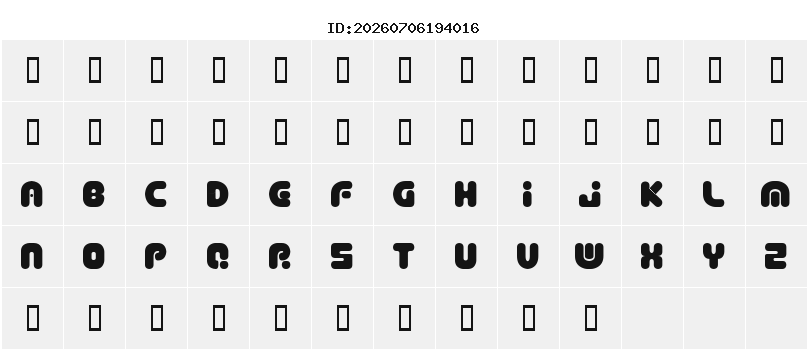
Depth Charge Preview
• Font Name: Depth Charge
• Font Style: SemiPhat
• Font ID: Macromedia Fontographer 4.1 Depth Charge SemiPhat
• Full Font Name: Depth Charge SemiPhat
• Version: Macromedia Fontographer 4.1 19.5.2001
• PostScript Name: DepthChargeSemiPhat
• Character Count: 27
About Depth Charge.ttf
Depth Charge.ttf is a modern, elegant sans-serif font designed for ultimate readability and visual harmony. Perfect for branding, headlines, web design, and print materials.